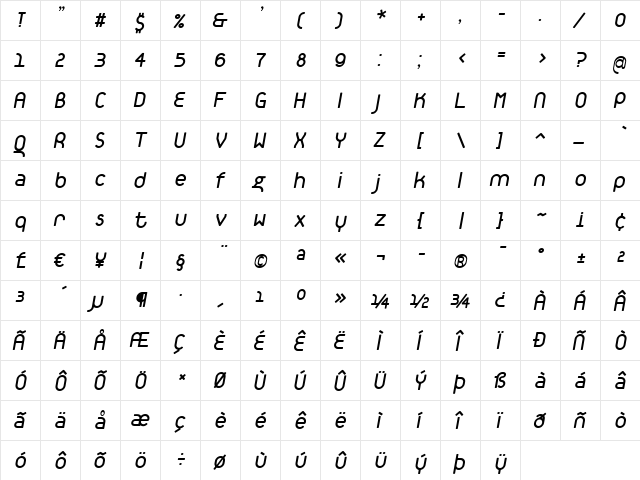
TantalusAlternativeItalic Regular
Design Context for TantalusAlternativeItalic Typeface
TantalusAlternativeItalic offers clean, dependable letterforms without strong stylistic allegiance, making it a practical choice for designers who need flexibility. The dynamic lean of this cut emphasises speed and emphasis in any layout.